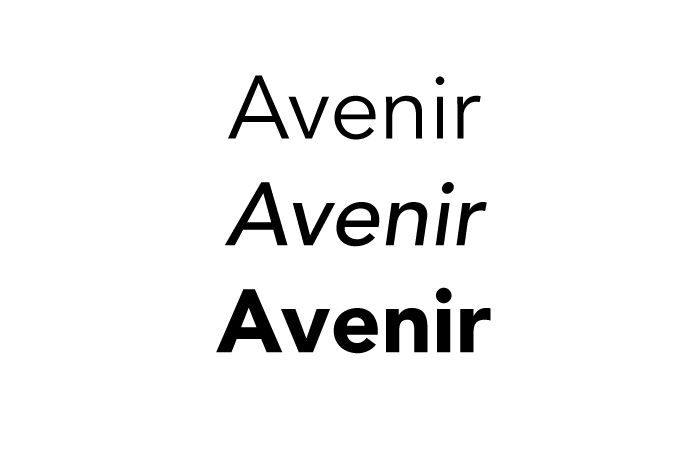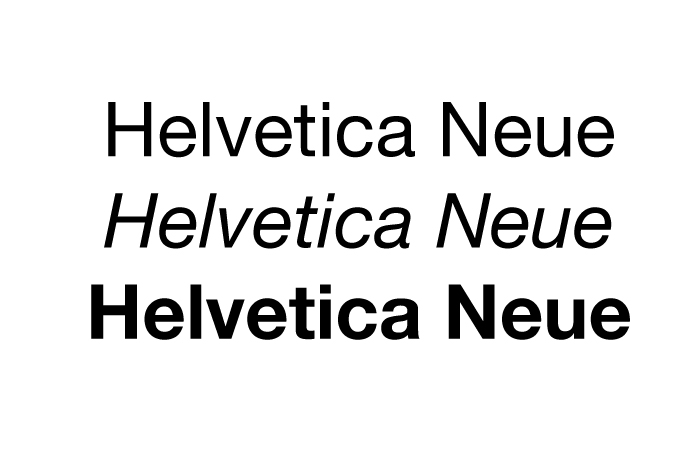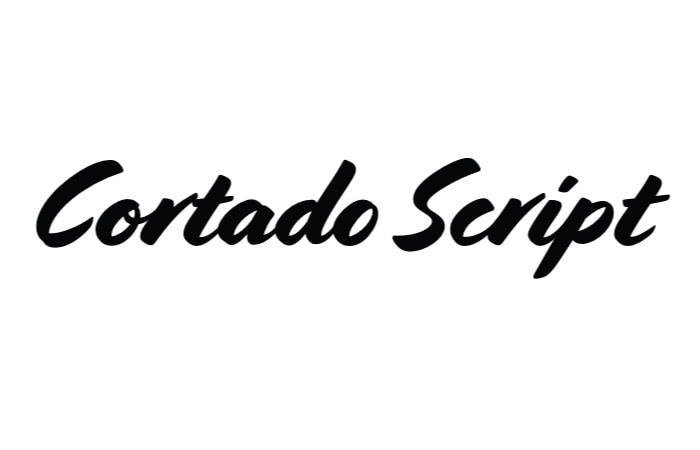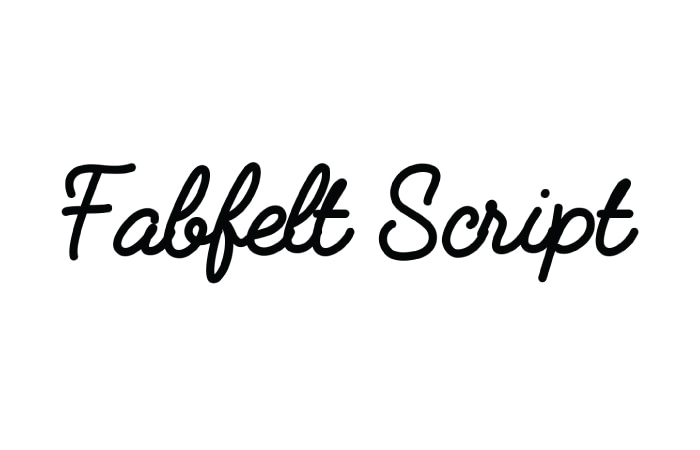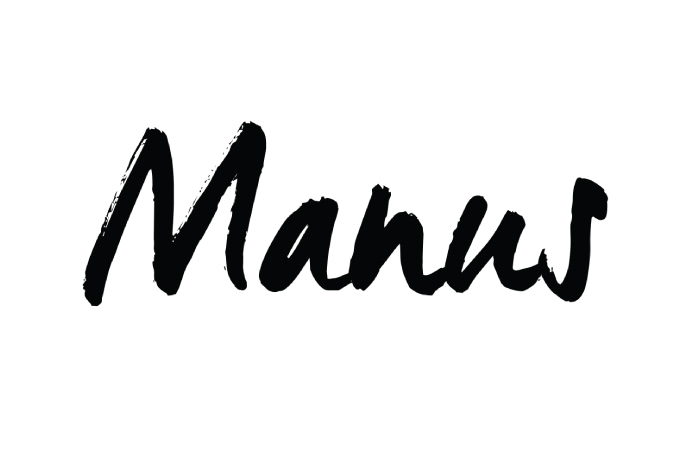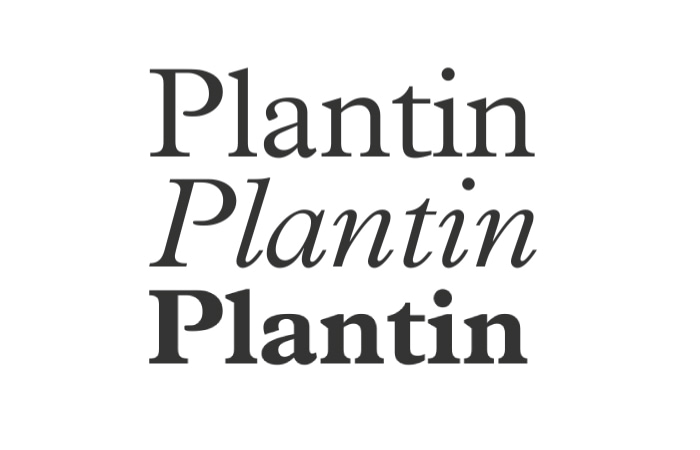
10 best Business Card fonts
Head-turning fonts that command attention for your brand.
When it comes to creating the best Business Cards, every detail matters—especially the font. Typefaces are often overlooked but play a huge role in seamlessly tying the overall design and shaping brand perception. Whether you’re aiming for a clean, professional vibe or something bold and snazzy, the right font can transform your business card into a conversation starter.
Before you choose your font, it’s worth knowing that fonts fall into three main styles: Serif,Sans Serif, and Script. Each type has a distinct vibe and purpose and brings something fresh to the table. Choosing the right one can help you match your design perfectly to your brand personality.
Serif font
Elegant and timeless, serif fonts have small strokes (or “serifs”) at the ends of letters, creating a sense of tradition and sophistication. These fonts have a classic feel rooted in the traditional typesetting techniques of letterpress printing.
Brand examples:
- The New York Times uses its iconic serif typeface to reflect authority and heritage.
- Tiffany & Co. uses a classic serif font to exude luxury and elegance.
Perfect for: Luxury brands, publishing, and professionals like lawyers or consultants.
Serif fonts for best business cards
1. Clarendon
An industry classic, Clarendon is an often-mimicked slab-serif font originally designed in 1845. The serifs in this font are bracketed, giving each letter a strong geometric presence. Clarendon is also known for its decorative letters, such as the capital Q and capital R, which all end with curved, elaborate strokes. Its versatility makes it an excellent choice for both vintage-inspired and modern business cards, especially for brands looking to combine tradition with flair.
Why it makes the best business card font: The geometric nature of this slab-serif font makes it ideal for standing out on the printed page. Using Clarendon on your business cards will surely command attention at first glance.
2. Lapture
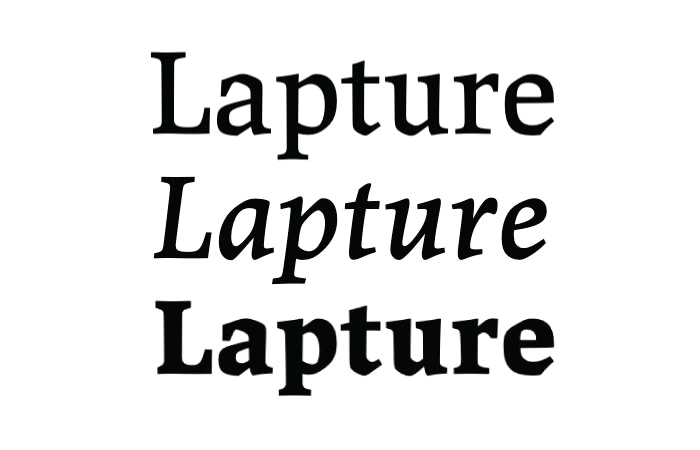
Designed by Just Another Foundry, Lapture brings a fresh twist to a modern serif font. The subtle geometric details in the rounded parts of each letter add a bit of personality without overdoing it. It’s a great choice if you want your personal brand to feel professional but still have a little edge.
Why it makes the best business card font: Lapture’s bold design makes it easy to read, even in smaller sizes. It’s super flexible, so you can tweak the spacing without worrying about it looking messy. Its clean lines print beautifully, making your business card look sharp and polished every time.
3. Plantin
Developed in 1913, Plantin is a timeless serif typeface that’s still going strong over a century later. Its sturdy design and well-spaced letters set the stage for many modern fonts, including the iconic Times New Roman.
Why it makes the best business card font: Most famously used in Monocle Magazine, Plantin is a reliable choice for print at any size. It comes in various weights and styles, making it easy to highlight key details like job titles or phone numbers while keeping your business cards looking neat and consistent.
4. Rockwell
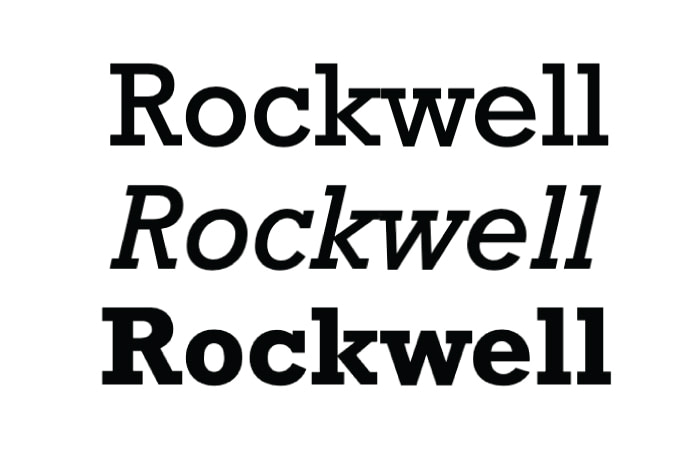
Released by Monotype in 1934, Rockwell is an iconic slab-serif font with a bold, approachable personality. With a variety of weights and styles, from bold italic to condensed, Rockwell keeps its charm no matter how you use it.
Why it makes the best business card font: Like most slab serifs, Rockwell’s strong, blocky serifs give text a grounded and balanced feel in any design. Its neat, symmetrical circular strokes on letters like ‘o’, ‘q’, and ‘p’ pair perfectly with geometric layouts, making it a great choice for clean and structured Business Cards.
San Serif font
Literally meaning “without serif,” sans serif fonts are simplistic, modern fonts typically used in web design. The clean and simple nature of sans serif typefaces makes them ideal for pairing with more ornate typography and logos. They’re a great choice for business card details, which are usually easier to read.
Brand examples:
- Airbnb uses its signature sans serif font for a clean, welcoming vibe.
- Nike pairs its bold logo with Futura to keep things simple and iconic.
Perfect for: Tech companies, startups, and creative industries.
San Serif fonts for business cards
1. Akkurat
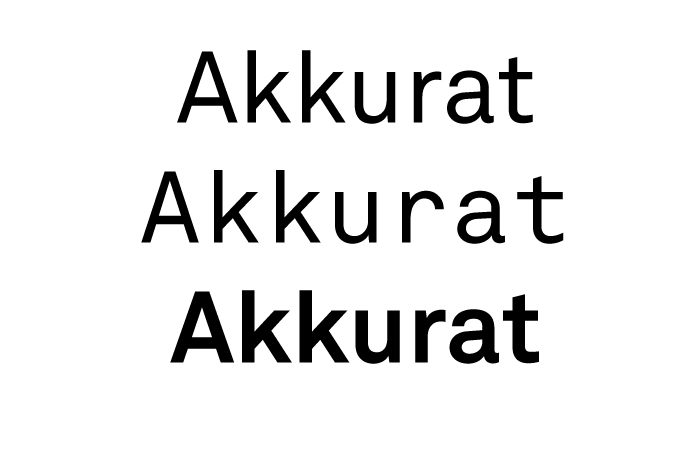
Since its inception in 2004, Akkurat has become a favourite in the design world, showing up on websites, print materials, and branding projects. Its simple but expressive style makes it easy to read, and great at getting a message across without feeling too formal.
Why it makes the best business card font: If your logo or branding is loud and attention-grabbing, Akkurat can balance things out with a more grounded, professional feel. It’s easy to read, works well in any layout, and gives your contact details a clear and polished look.